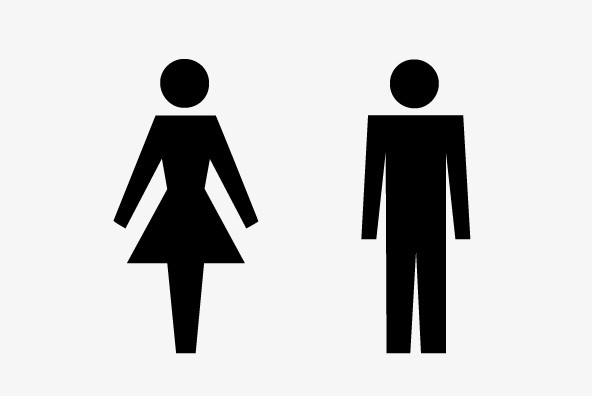
Signs and Symbols
Signs and Symbols is a collection of general purpose images for a variety of applications like climate and weather, nature, leisure, sports etc. Handy when you need some signs and symbols for your layout. Signs and Symbols was designed by Ralph M. Unger for the URW++ FontForum.